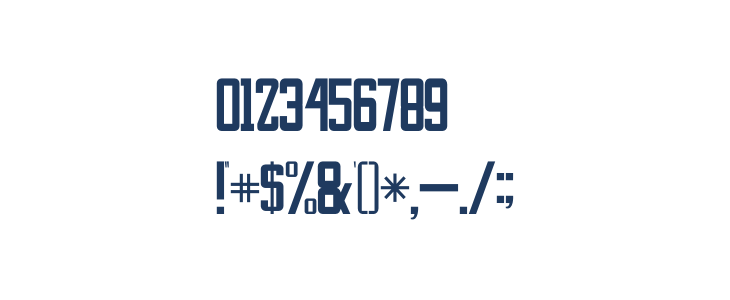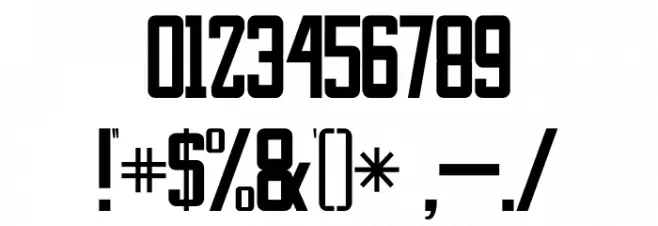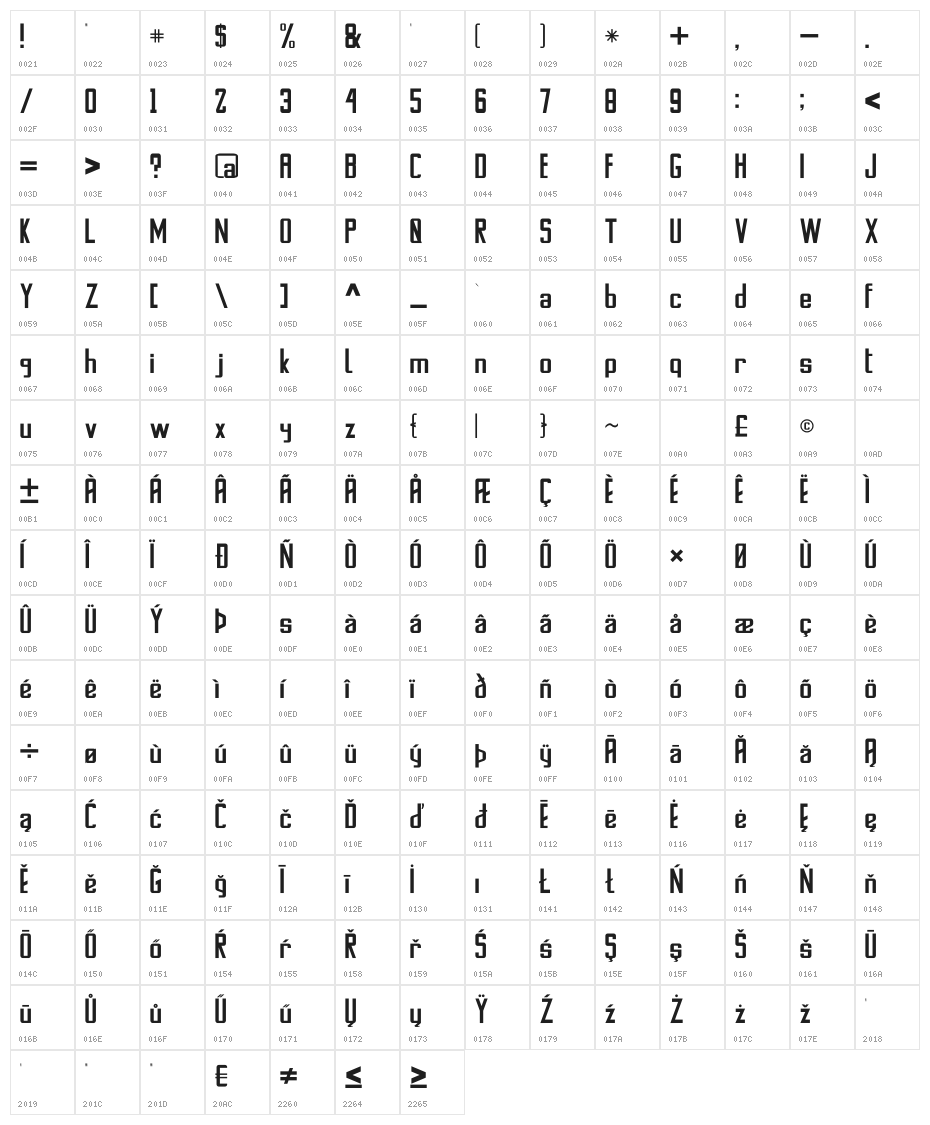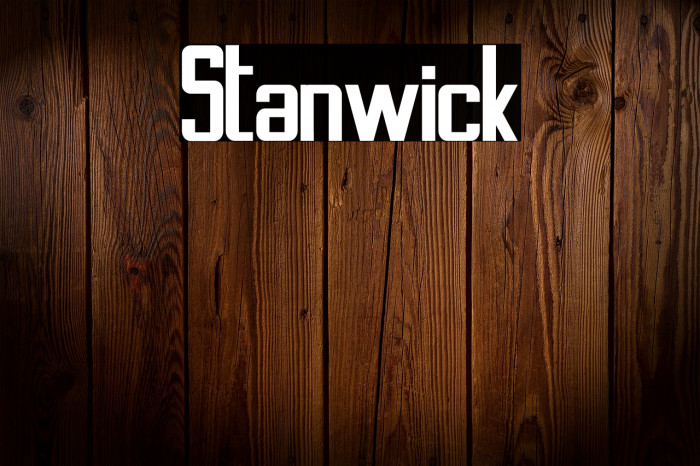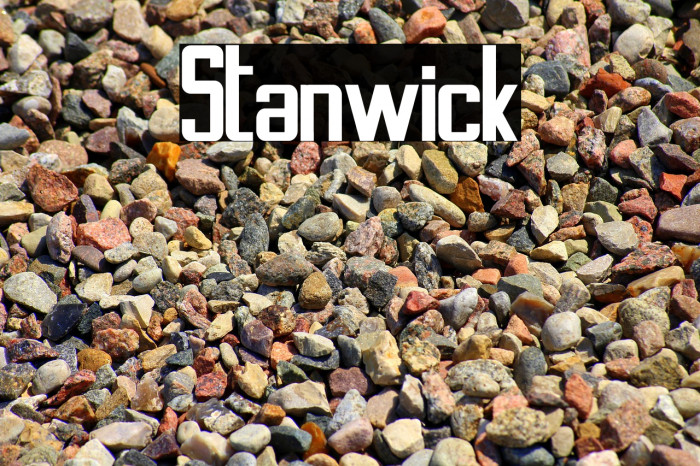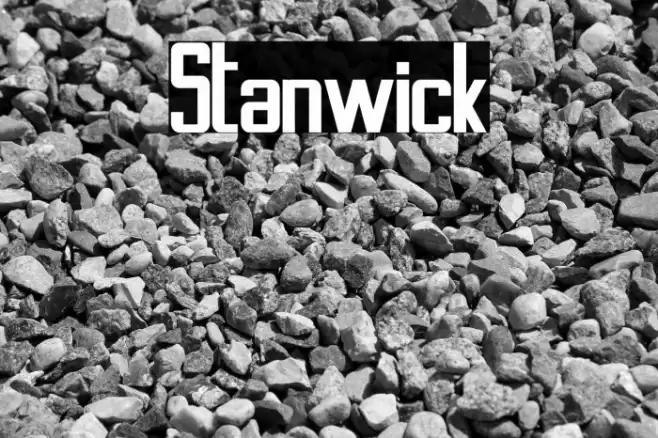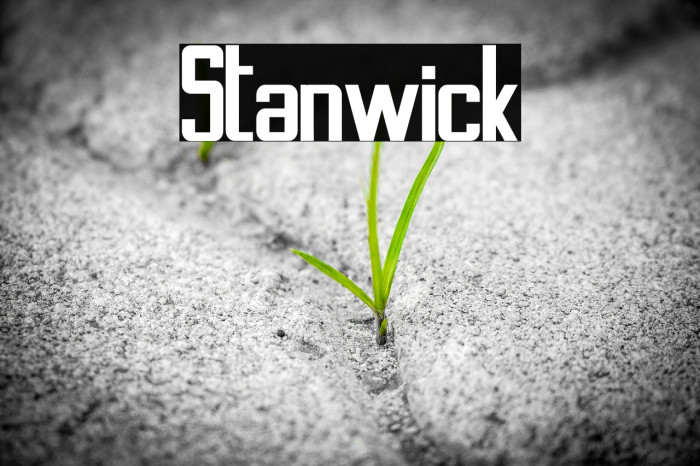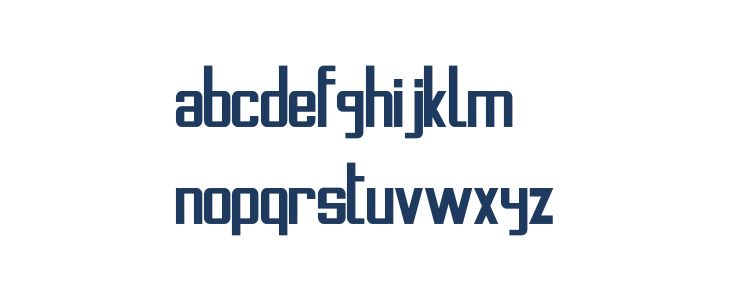
Stanwick Font
Stanwick Description
This font features a bold and geometric design with a modern aesthetic. The uppercase letters are tall and narrow, with sharp angles and a consistent stroke width that gives a clean and structured appearance. The lowercase letters maintain the geometric style, offering a cohesive look across different text sizes. The numerals are equally bold and align well with the overall design, making them highly legible. Special characters are distinct and match the font's angular style, ensuring versatility in various contexts. This font's strong presence makes it suitable for impactful designs.